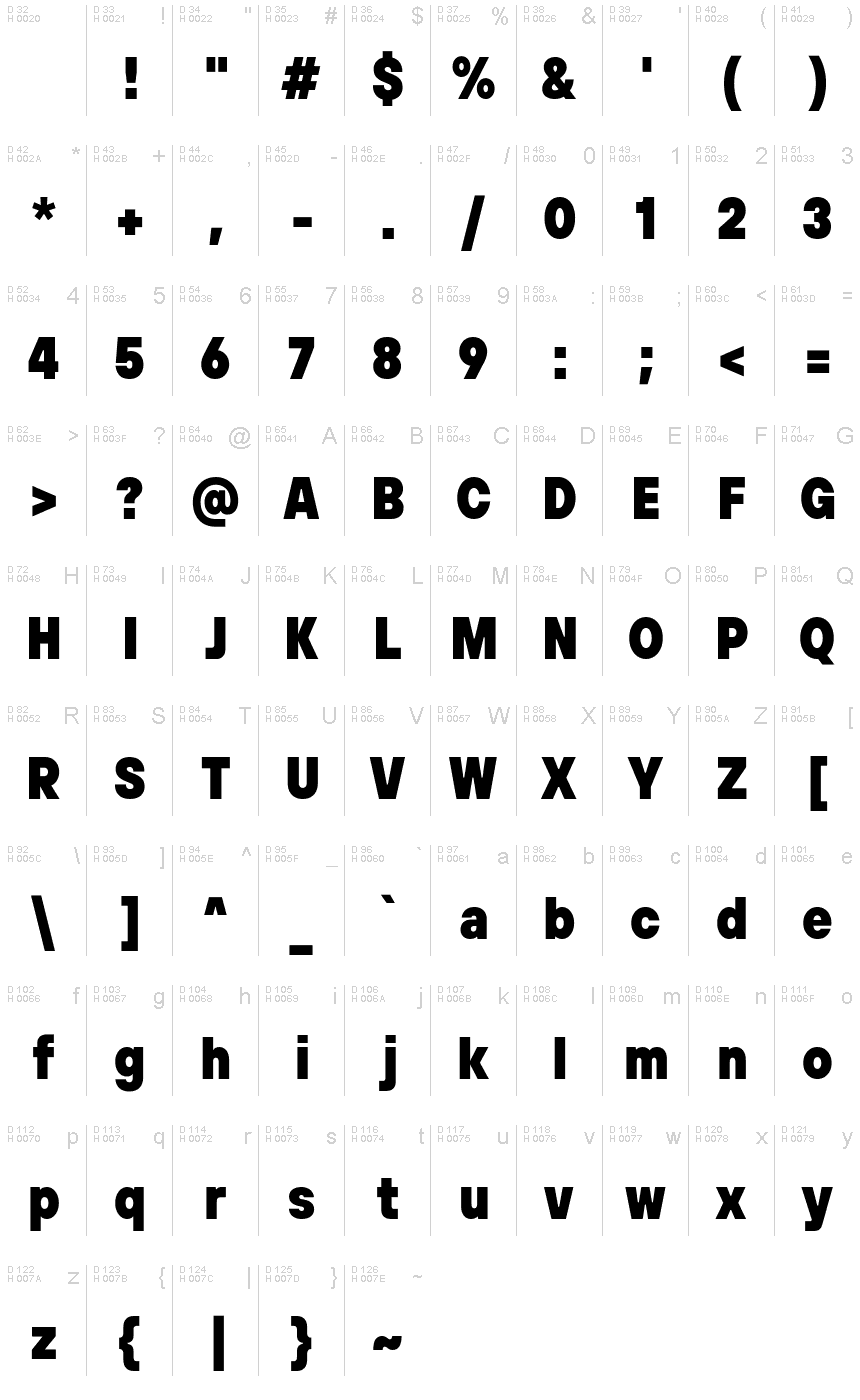
TT Hoves Pro Cnd Black is a sleek and sophisticated sans serif font that exudes power and elegance. Its ultra-bold weight adds a touch of drama to any project, making it ideal for high-impact designs that demand attention.
With its condensed width, this font is perfect for creating bold headlines, logos, and branding materials. It can also be used effectively in editorial layouts, website headers, and packaging designs. TT Hoves Pro Cnd Black is the ultimate choice for projects where you want to make a bold statement and leave a lasting impression on your audience.